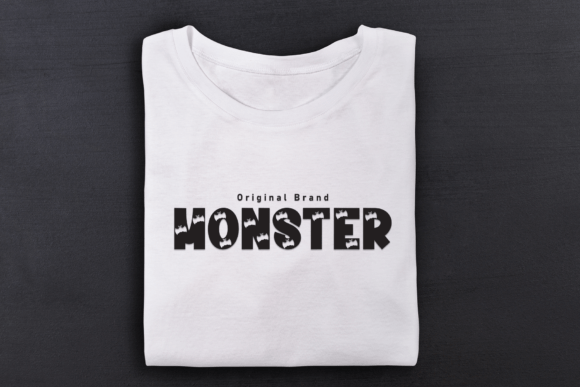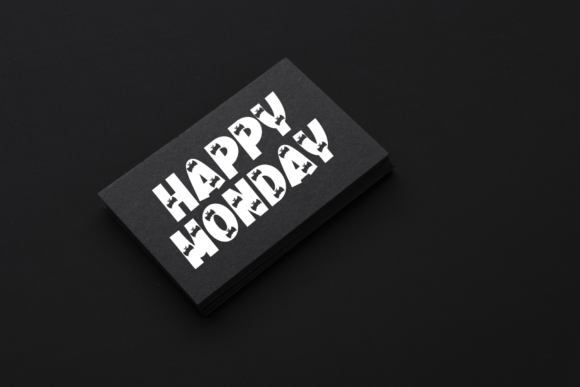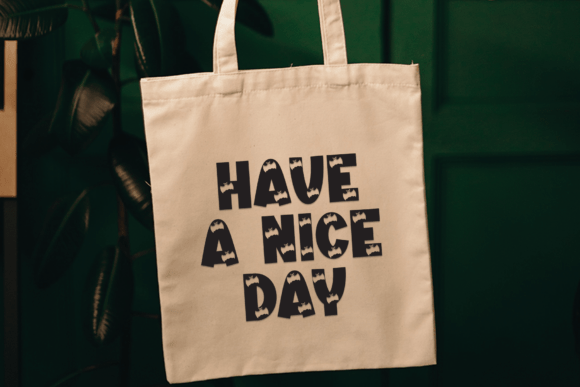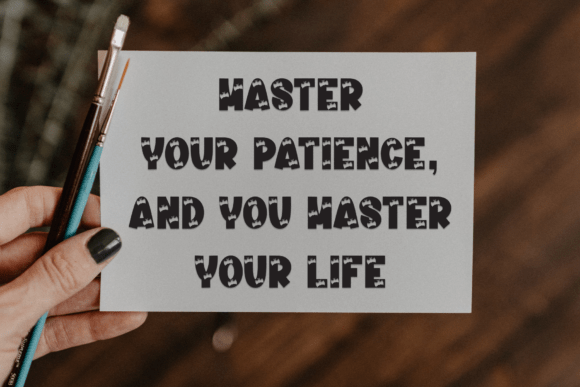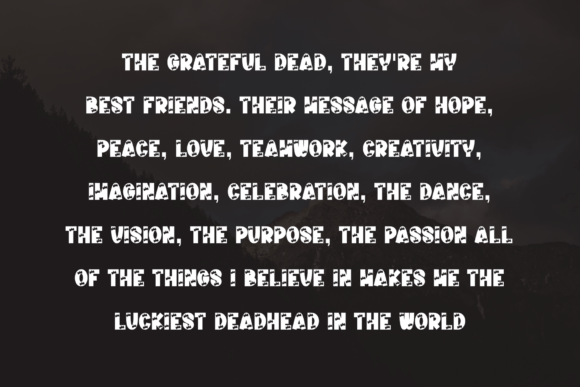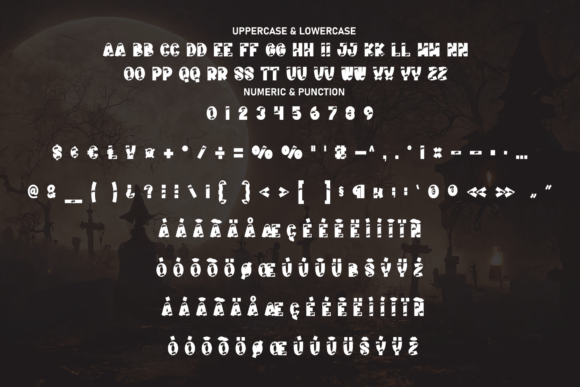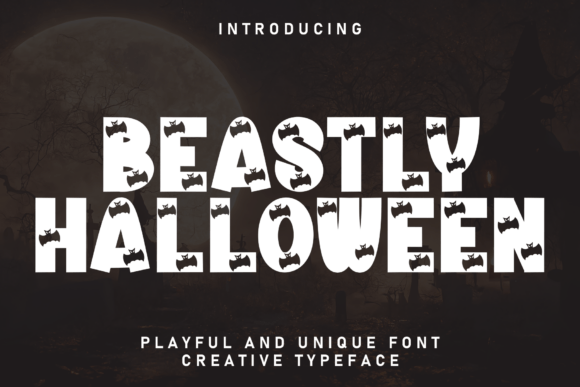
Unleash the Delightful Charm of Beastly Halloween Font: A Playful Addition to Your Designs
Are you looking for a font that exudes a sense of whimsy and playfulness, perfect for adding a touch of magic to your designs? Look no further than the Beastly Halloween Font, a handwritten display font that boasts a delightful charm and radiates an endearing sweetness. With its fun and cute demeanor, this font is sure to aptly grace any design, adding a twinkle of joy that’s sure to captivate your audience.
A Perfect Match for Whimsical Designs
The Beastly Halloween Font is a versatile font that’s perfect for a variety of design projects. Its playful and charming nature makes it an ideal match for:
- Heartfelt wedding invitations: Add a touch of romance and whimsy to your wedding invitations with this delightful font.
- Whimsical cards: Create playful and eye-catching cards for birthdays, holidays, or any special occasion.
- Fun and creative designs: Infuse your designs with a sense of fun and playfulness, perfect for brands or projects that want to convey a sense of friendliness and approachability.
What Makes Beastly Halloween Font So Special?
So, what sets the Beastly Halloween Font apart from other fonts? Here are just a few reasons why this font is a must-have for designers and crafters:
- Unique and playful design: The Beastly Halloween Font features a one-of-a-kind design that’s sure to grab attention and add a touch of personality to your designs.
- Handwritten charm: The font’s handwritten nature gives it a warm and inviting feel, perfect for designs that want to convey a sense of friendliness and approachability.
- Easy to read: Despite its playful nature, the Beastly Halloween Font is easy to read, making it perfect for designs that need to convey a message or tell a story.
How to Use Beastly Halloween Font in Your Designs
Using the Beastly Halloween Font in your designs is easy. Here are a few tips to get you started:
- Pair it with other fonts: Combine the Beastly Halloween Font with other fonts to create a unique and eye-catching design.
- Experiment with colors: Try out different colors and color combinations to add an extra layer of personality to your design.
- Use it sparingly: Use the Beastly Halloween Font sparingly to add a touch of whimsy to your design, or use it as a headline font to make a bold statement.
Why Designers and Crafters Love Beastly Halloween Font
Designers and crafters love the Beastly Halloween Font for a variety of reasons. Here are just a few:
- It’s fun and playful: The Beastly Halloween Font is the perfect way to add a touch of fun and playfulness to your designs.
- It’s versatile: The font can be used in a variety of design projects, from wedding invitations to whimsical cards.
- It’s easy to use: The font is easy to read and use, making it perfect for designers and crafters of all skill levels.
In conclusion, the Beastly Halloween Font is a playful and charming font that’s perfect for adding a touch of whimsy to your designs. With its unique and playful design, handwritten charm, and ease of use, this font is sure to become a favorite among designers and crafters. So why wait? Embrace this playful font and make your designs resonate with amiable inclusivity!
Whether you’re a seasoned designer or a crafter looking for a new font to add to your collection, the Beastly Halloween Font is sure to delight. So go ahead, get creative, and unleash the delightful charm of this amazing font!